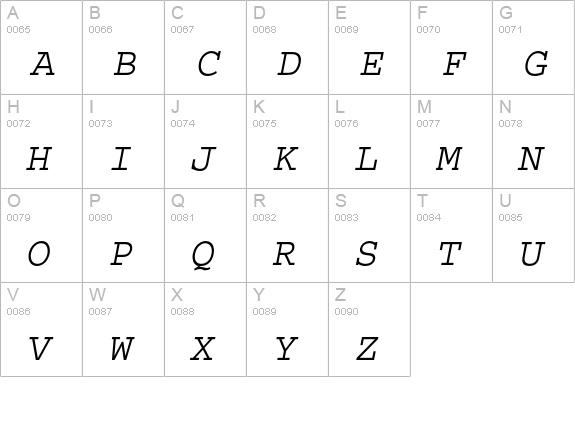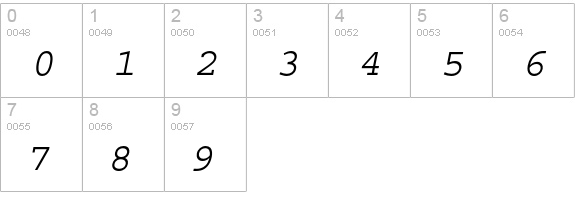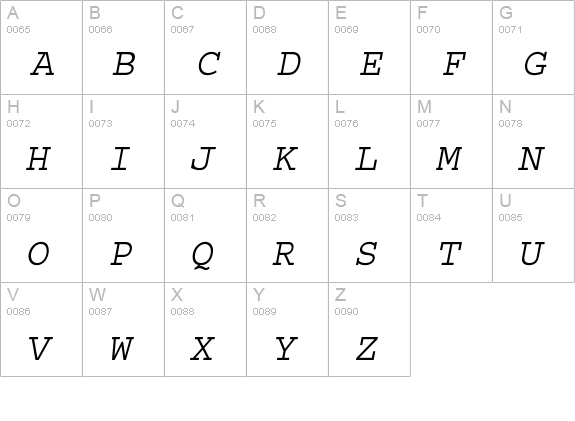
Courier Std Medium Oblique Font Details
Courier Std Medium Oblique is a balanced, medium-weight, italic variant in the Courier typeface family \xE2\x80\x94 well suited to sub-headlines, navigation, and balanced editorial work.
Courier Std Medium Oblique is a classic and versatile font that adds a touch of elegance and professionalism to any design project. With its slanted style, this font brings a dynamic and modern look while still maintaining the traditional Courier aesthetic. The clean lines and balanced spacing make it perfect for both digital and print applications. Best of all, Courier Std Medium Oblique is available for free download at FontsMarket.com. This means you can easily access and use this stylish font in your projects without any cost. Whether you're working on a website, a marketing brochure, or a creative project, Courier Std Medium Oblique is a reliable choice that will elevate your design to the next level. Download it today and add a touch of sophistication to your work!